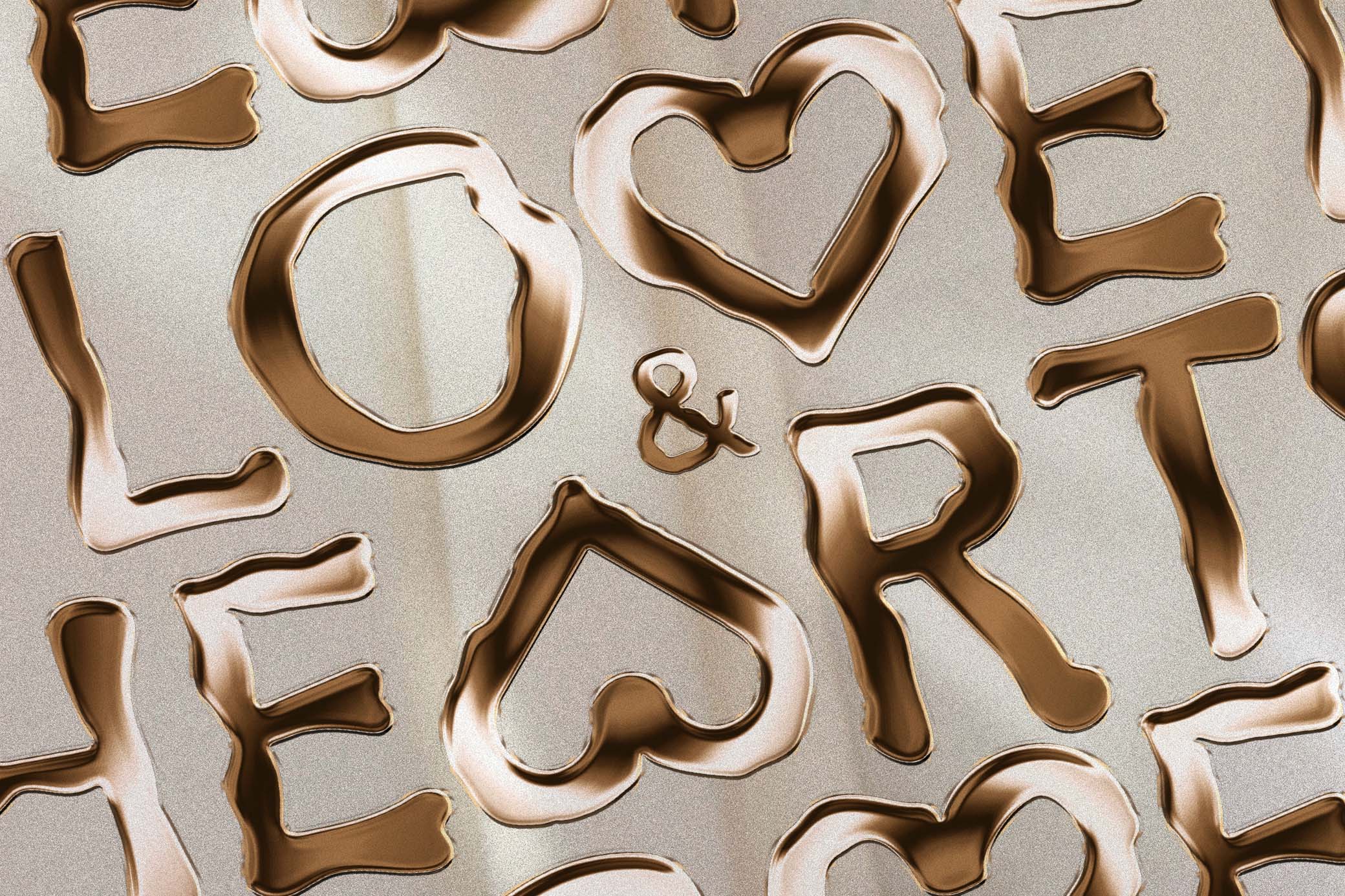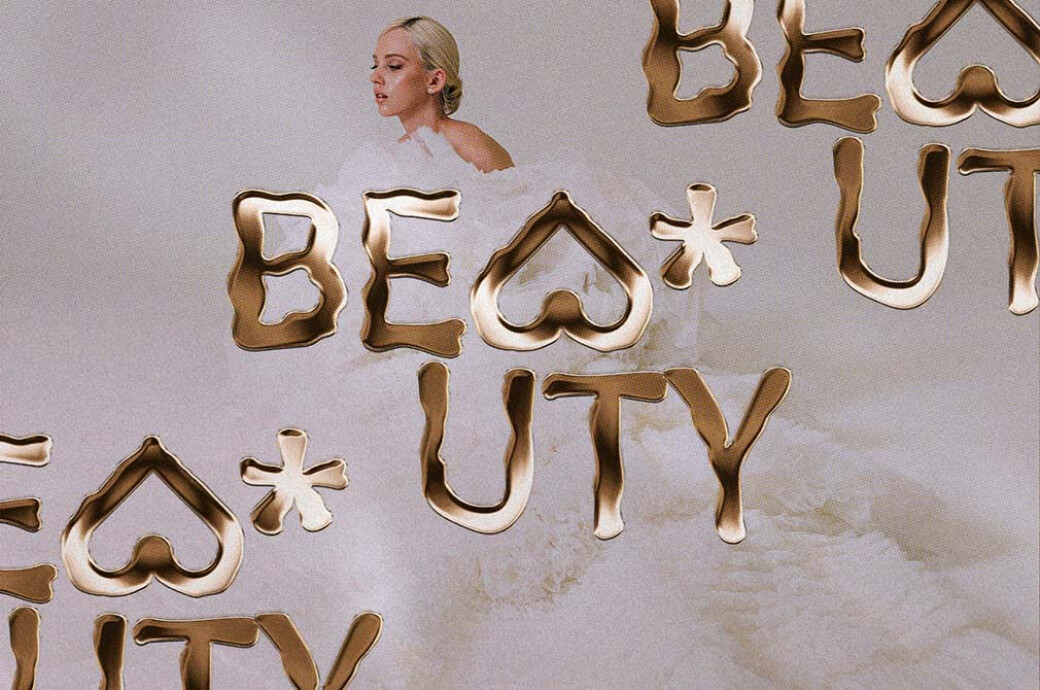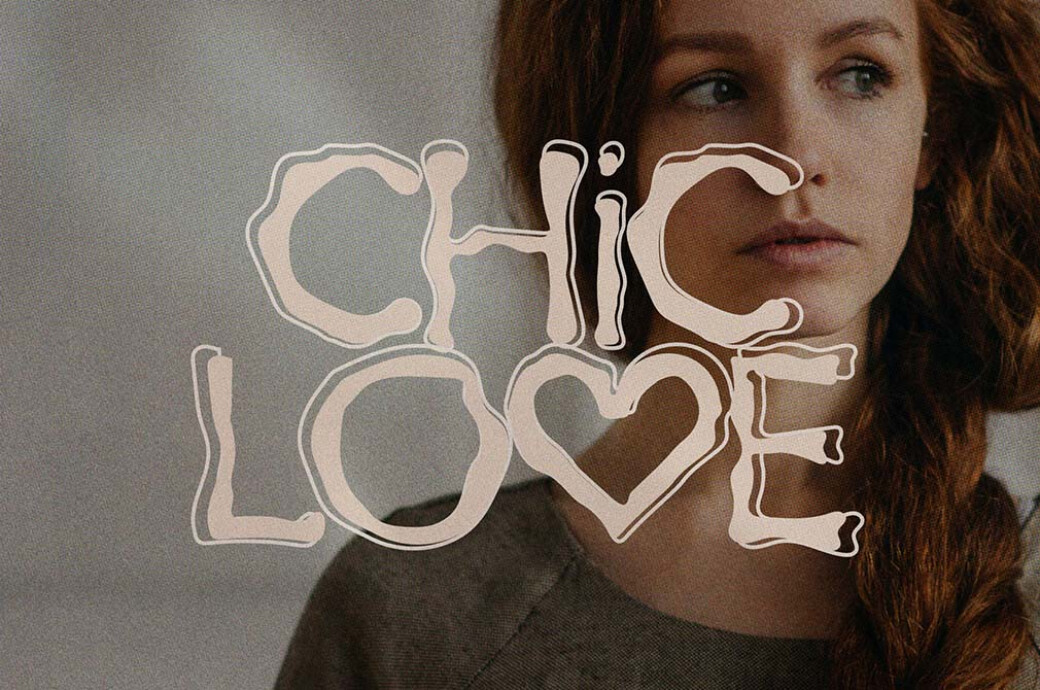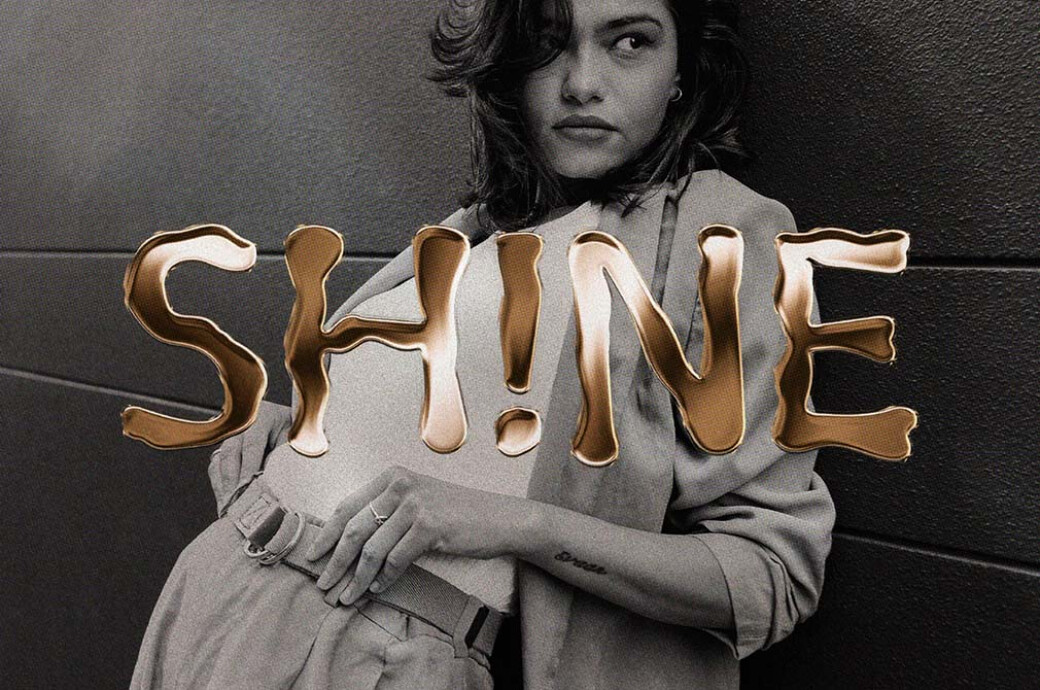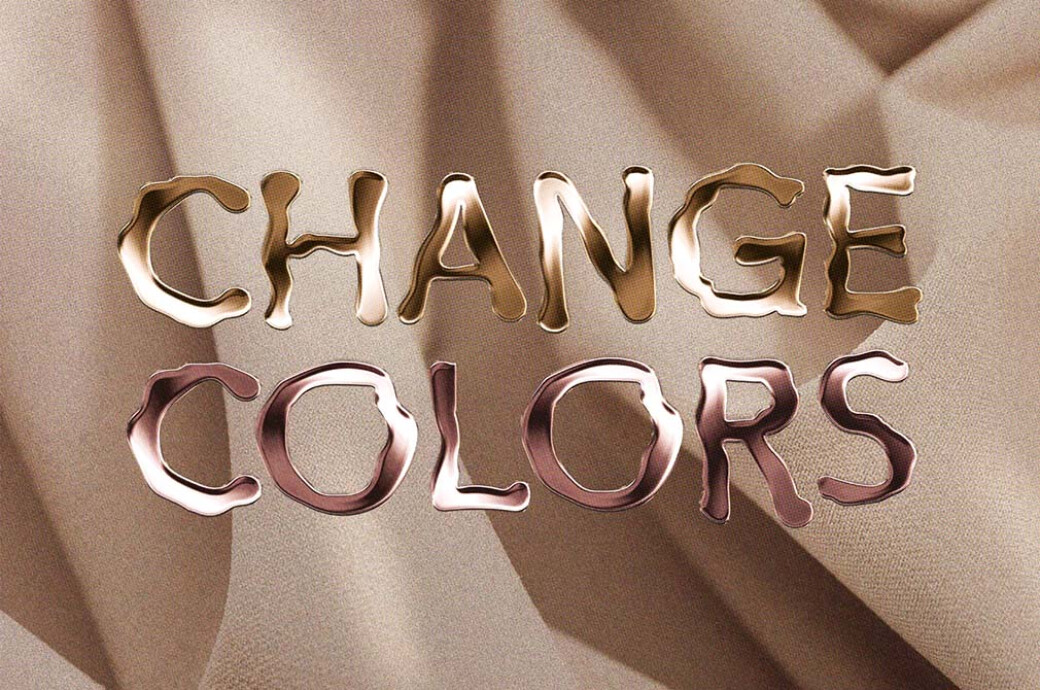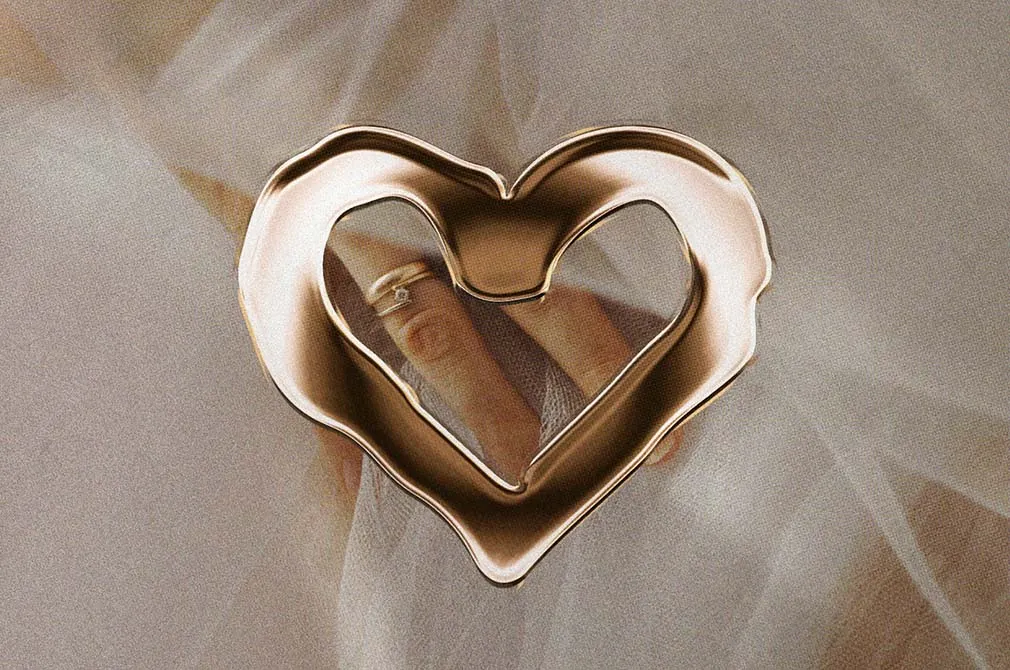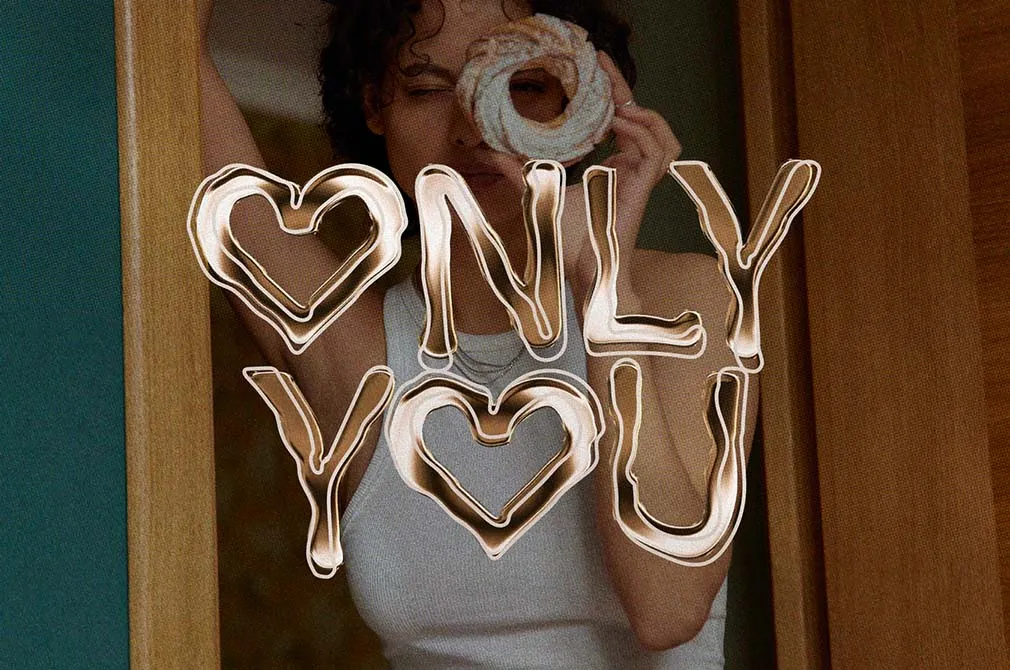
Love & Hearts — Golden SVG Font Pack
Say you're in love without actually saying you're in love! We've got a typeface for all your romantic declarations, and nothing will do it better.Released by our talented colleague SilverStag, Love & Hearts is the most accurate expression of their philosophy: not to put their work in a box and experiment whenever they can. It brings together 8 fonts, which are as varied as a lover's range of emotions. You will find both traditional Regular/Outline versions and Funky/Gold SVG variations that spark creativity and expression. We're sure you will enjoy exploring and trying them for your projects: from actual love letters and postcards to branding and stationery designs.